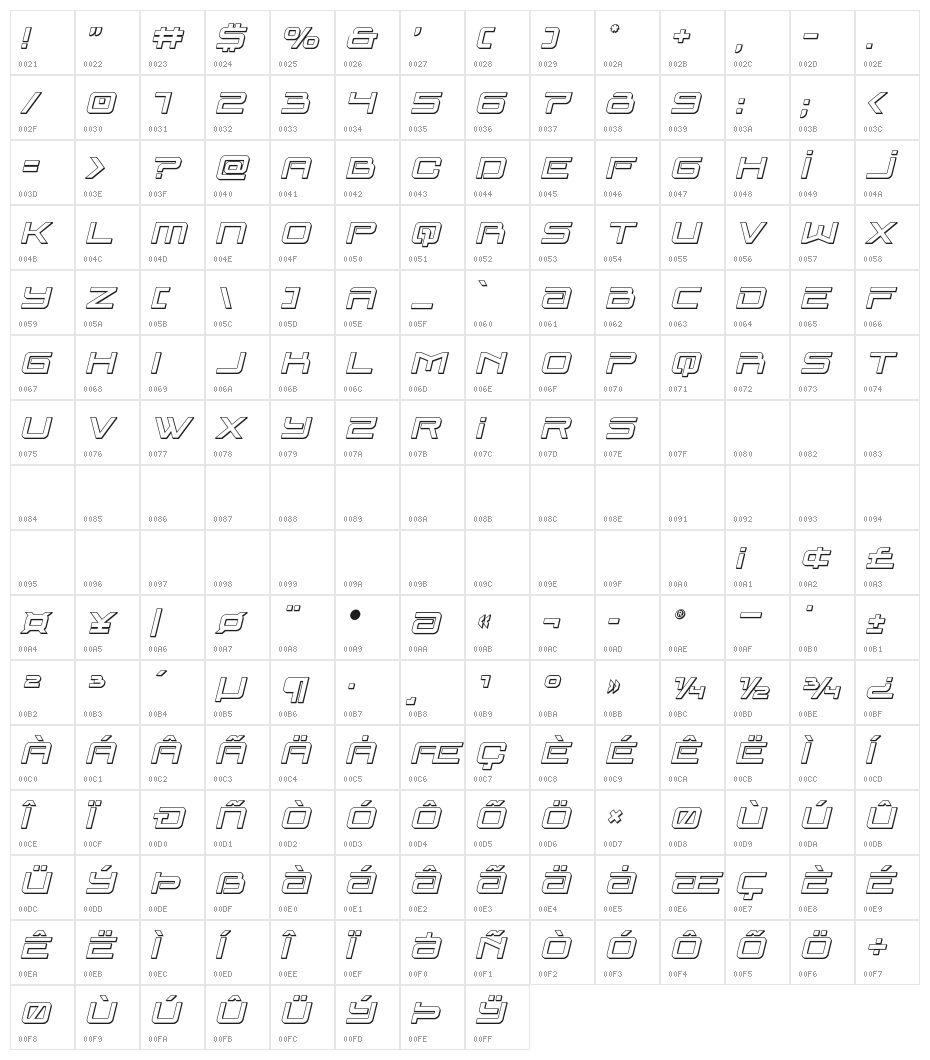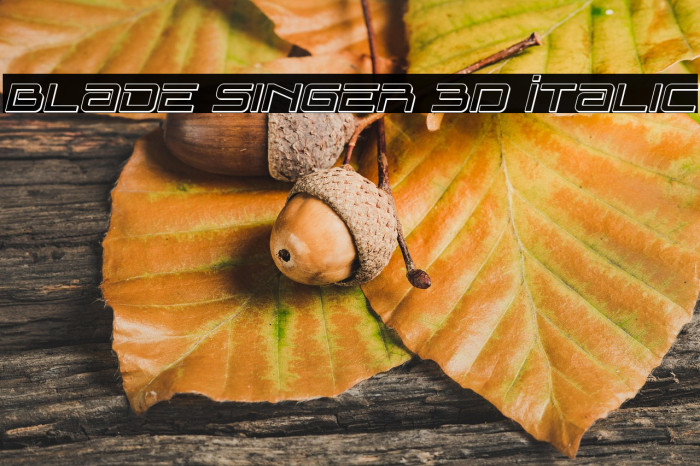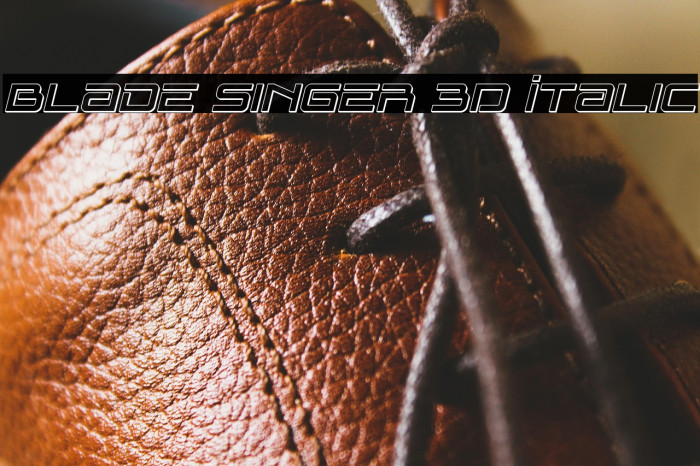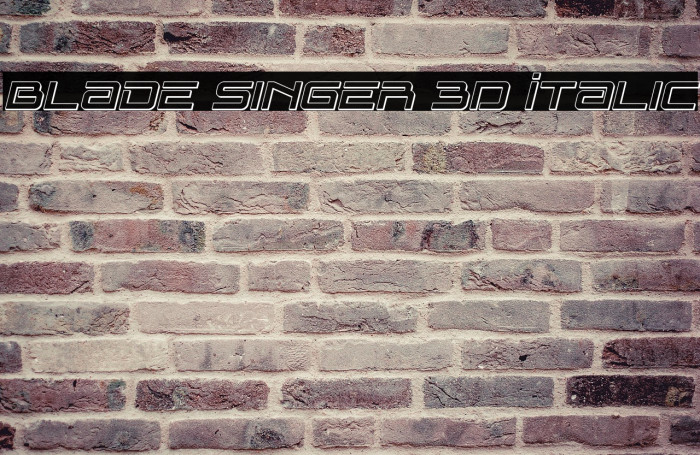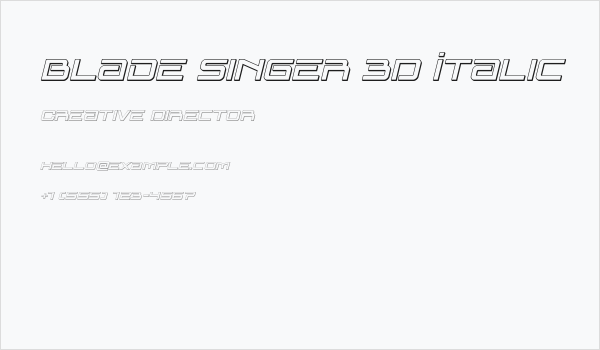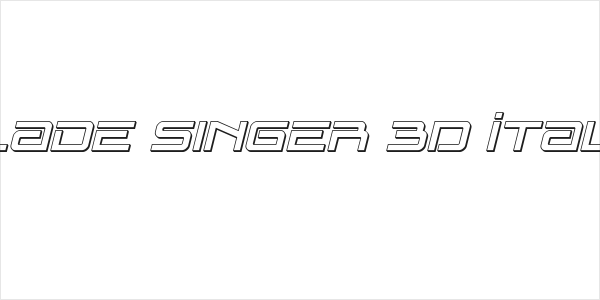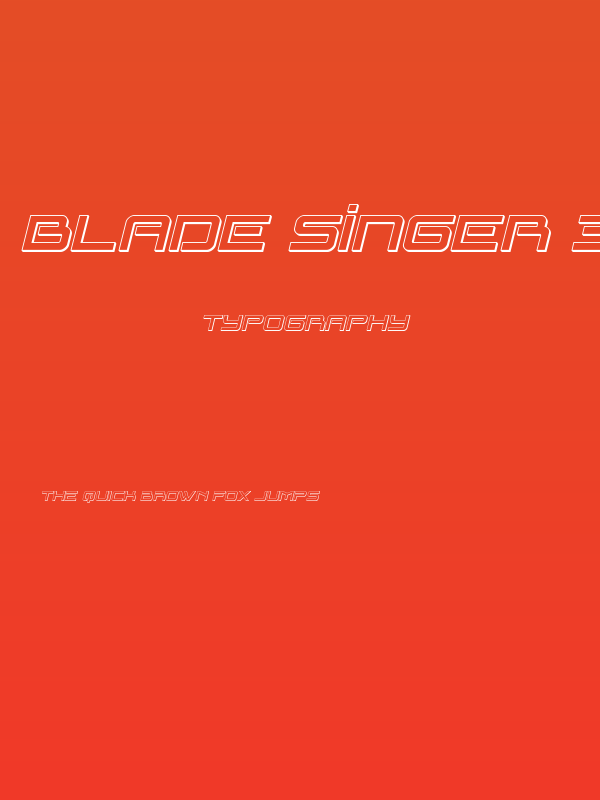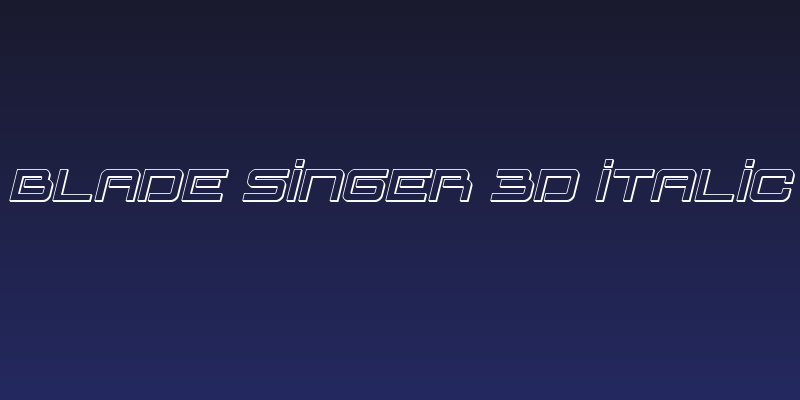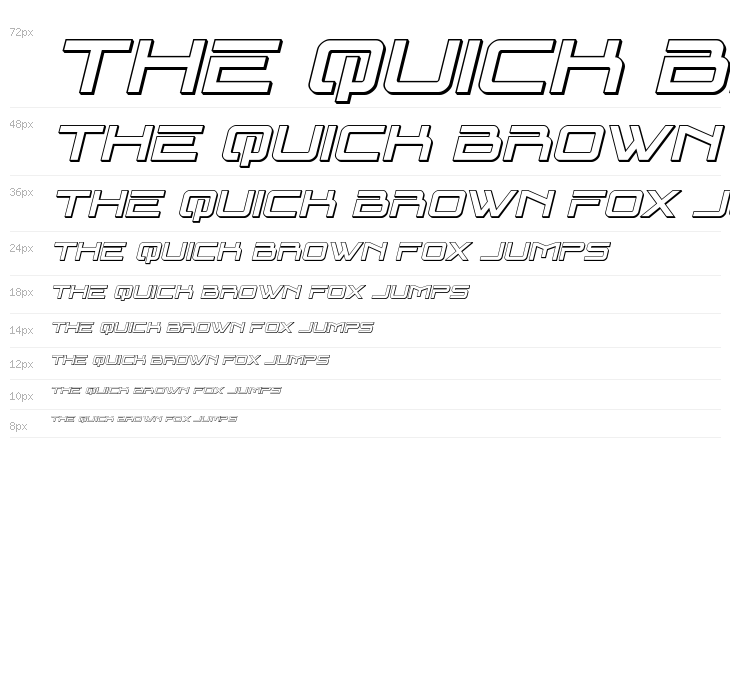
Blade Singer 3D Italic Font
Blade Singer 3D Italic Description
This font features a futuristic and dynamic design with a 3D effect that gives it a sense of depth and movement. The characters are outlined, creating a hollow appearance that enhances the three-dimensional look. The italic style adds a forward-leaning motion, suggesting speed and agility. Each letter is crafted with sharp angles and clean lines, contributing to a modern and sleek aesthetic. The font maintains consistent spacing and proportions, ensuring readability while preserving its unique style. The numerals and special characters follow the same design principles, making them cohesive with the alphabet. This font is ideal for projects that require a bold and contemporary look.
| Proposed Projects | Ideal for sci-fi themed posters, video game titles, technology branding, and innovative product packaging. |